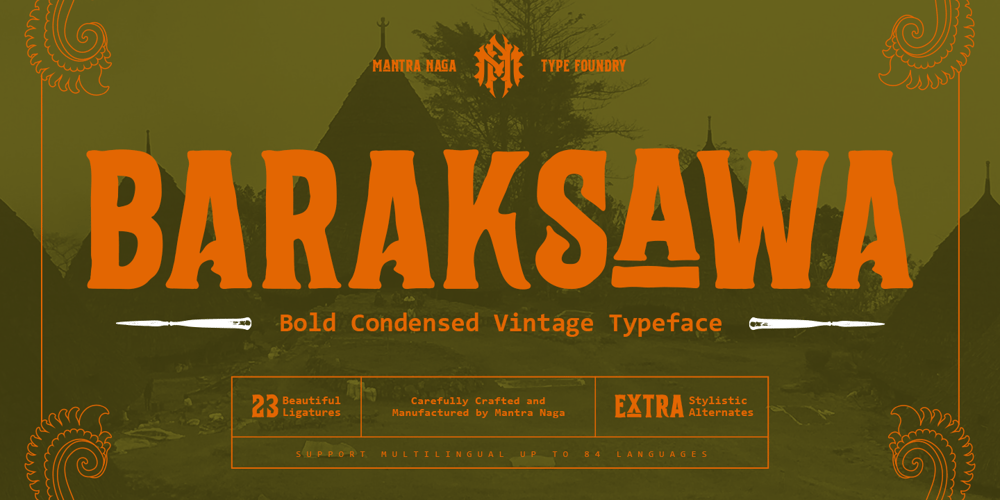
Baraksawa
Baraksawa font
Baraksawa Font Family was designed by Fredo Eka Pratama and published by Mantra Naga Studio. Baraksawa contains 1 styles and family package options. Baraksawa is a Bold, Condensed Vintage Serif Font. This typeface has many alternatives with swashes that can make your lettering/logotype more attractive. Bold serifs and grainy effects make this font even more unique.This font is perfect for logos invitations, labels, magazines, books, greeting/wedding cards, packaging, fashion, make up, stationery, novels, labels, or advertising purposes. This font is PUA encoded, which means you can access all of the glyphs and swashes with ease!